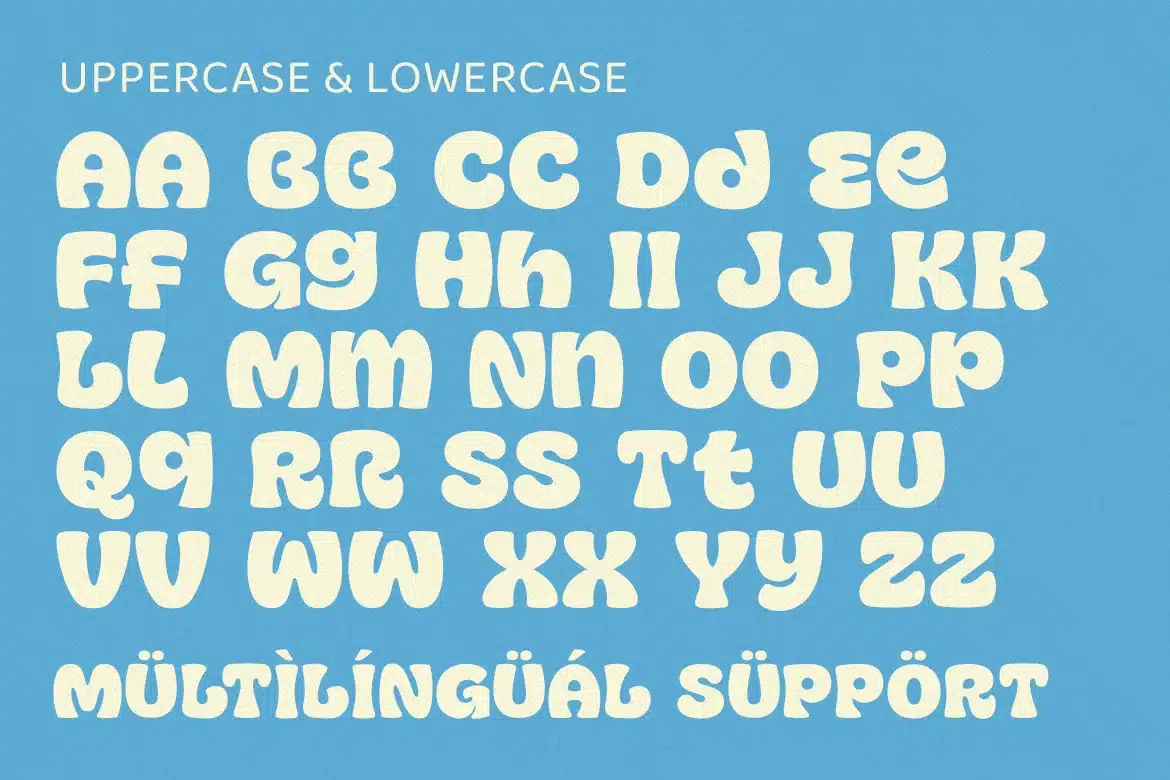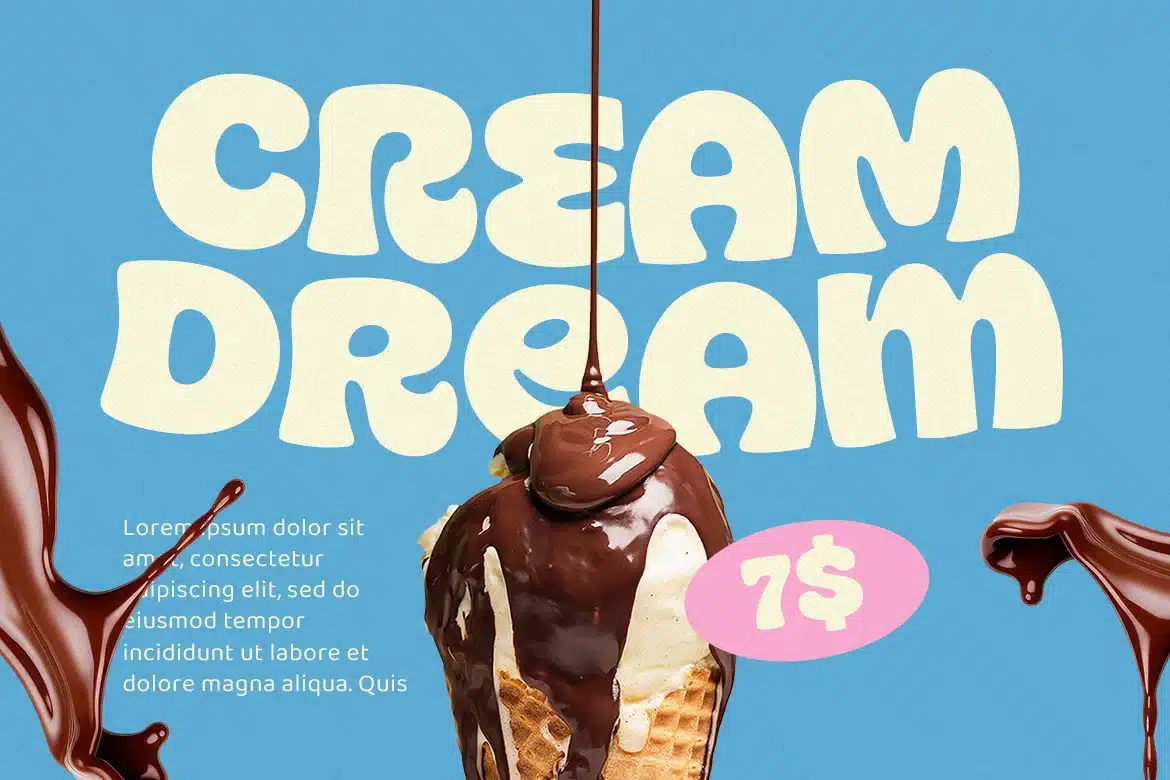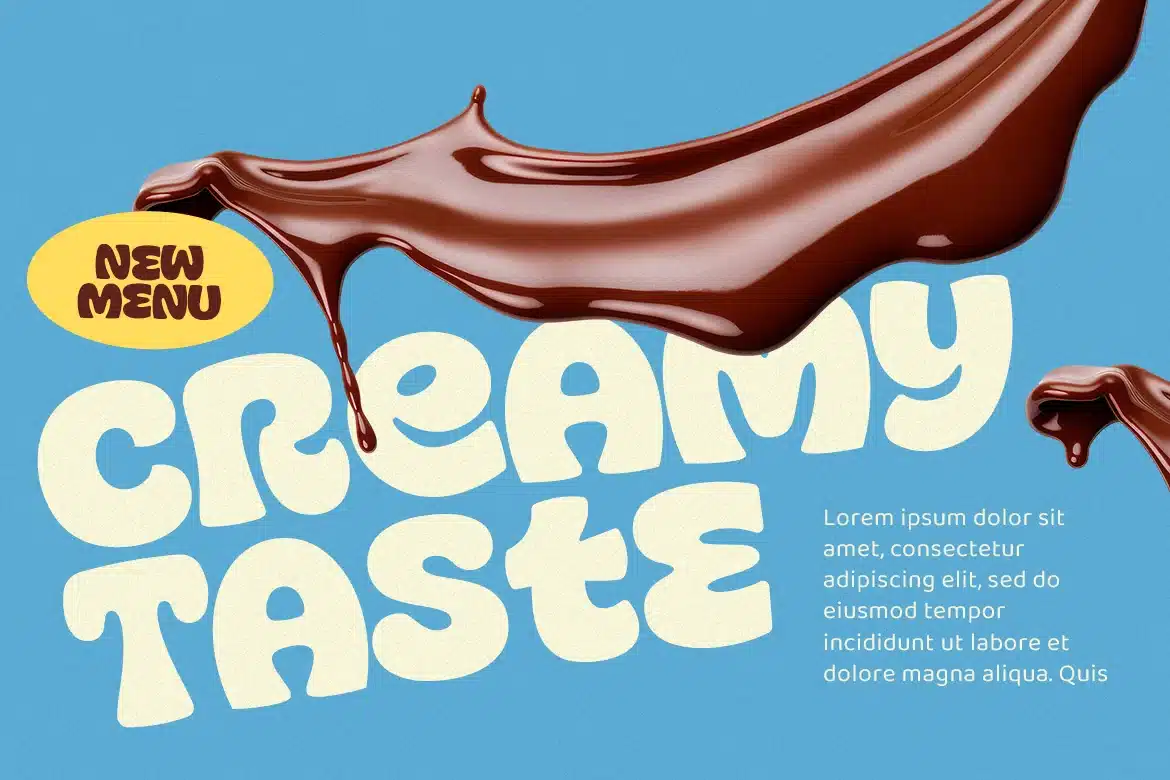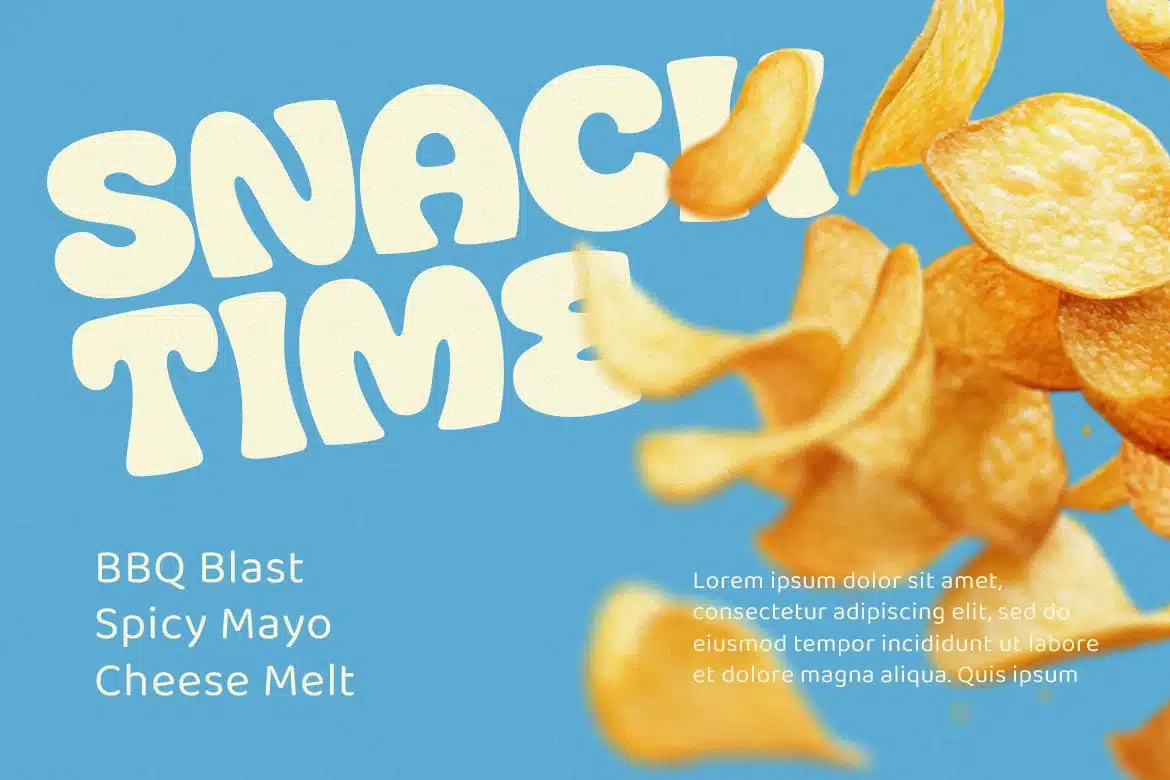
Corela Sweet – Food Display Font
Corela Sweet Food Display Font is a bold and playful typeface inspired by delicious desserts and creamy textures. Its soft rounded shapes and smooth curves create a sweet, appetizing look that feels warm, fun, and highly inviting. The thick letterforms give strong visual impact while maintaining a friendly and tasty personality.
Best Used For:
Dessert Branding
Bakery Packaging
Cafe Menus
Candy Labels
Chocolate Branding
Food Logos
Product Packaging
Social Media Promotions